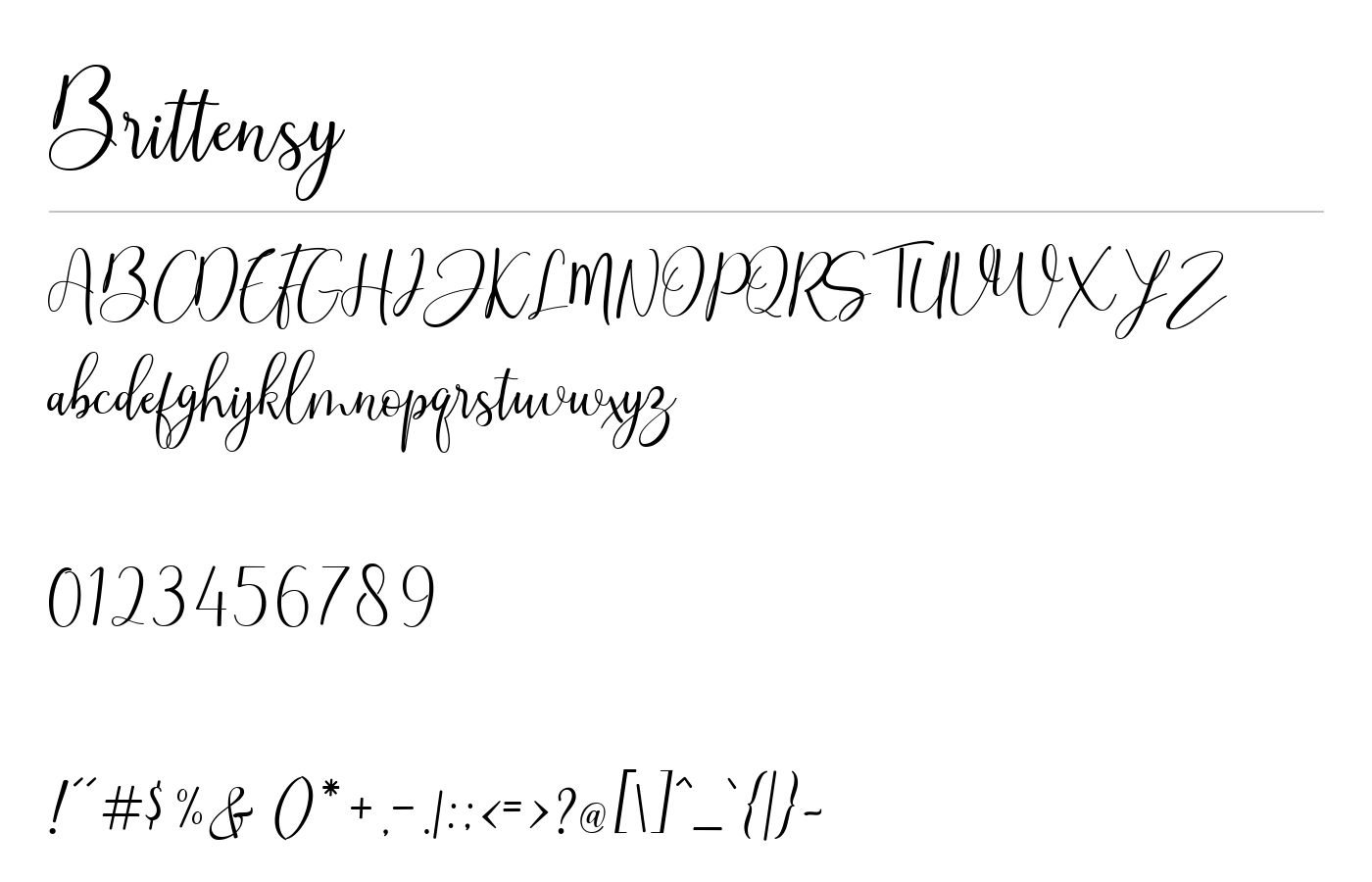
Brittensy is a delicate and elegant script font with graceful strokes and a handwritten feel, featuring slender, flowing letterforms that convey sophistication and charm. Its light weight and airy design make it perfect for invitations, branding, and editorial projects that require a refined, personal touch. This font works beautifully in contexts where a soft, feminine, and stylish aesthetic is desired.
Brittensy Font
About Brittensy Font
| Designer | Attract Studio |